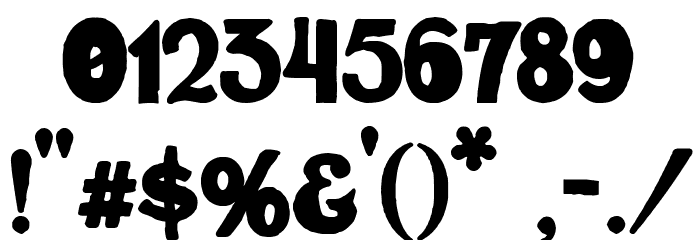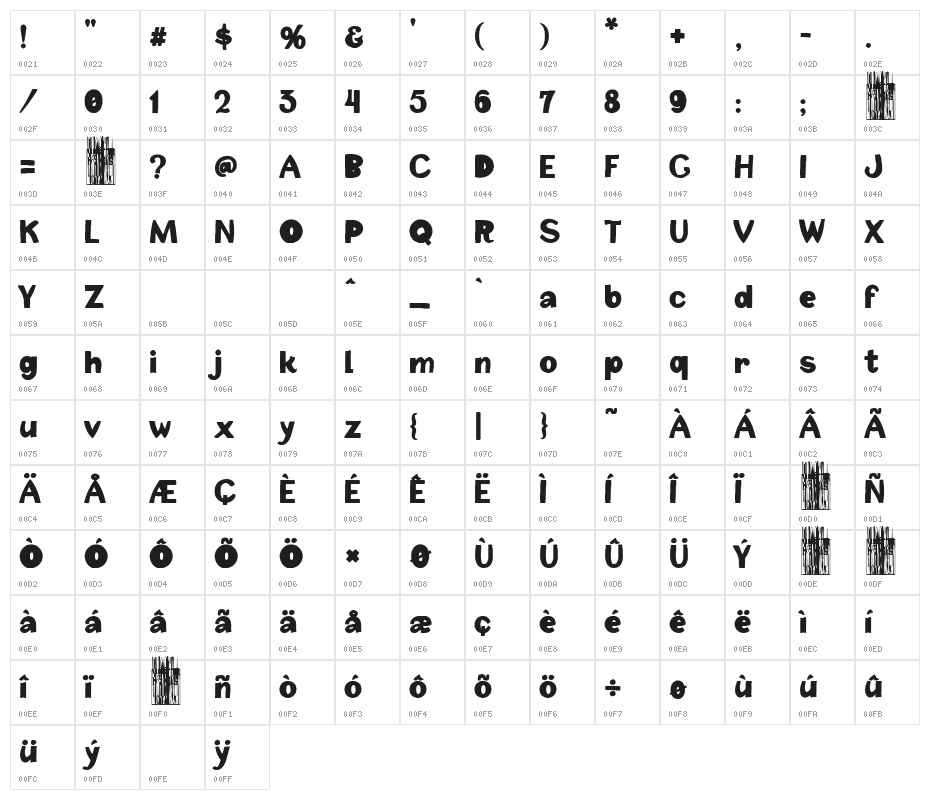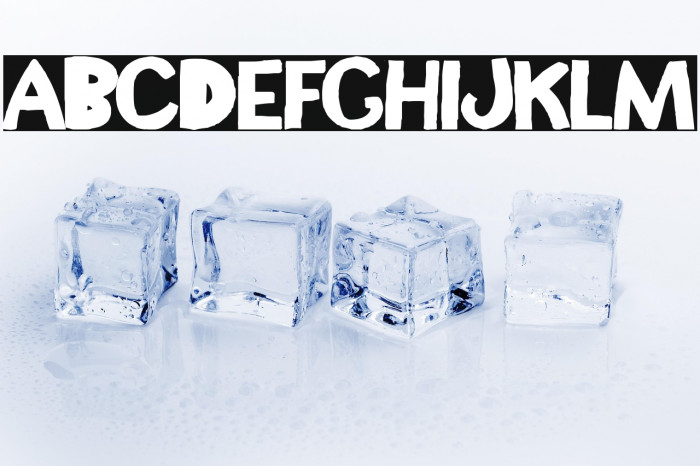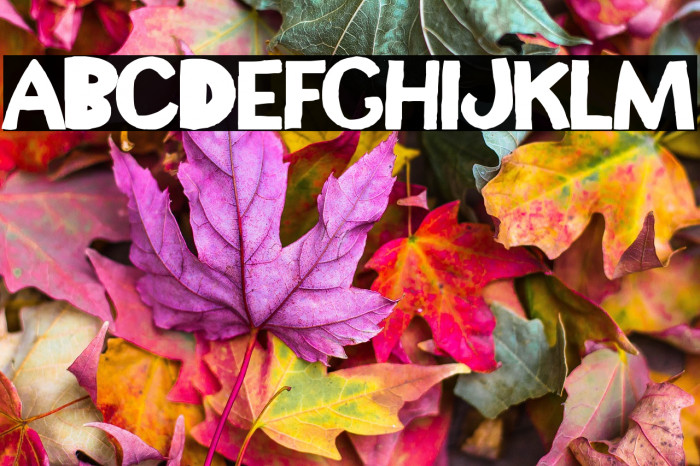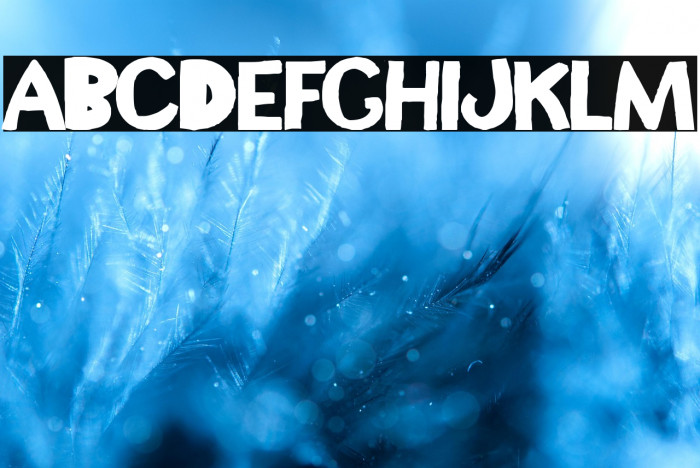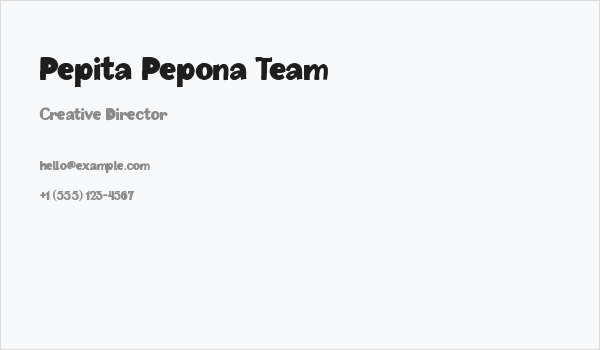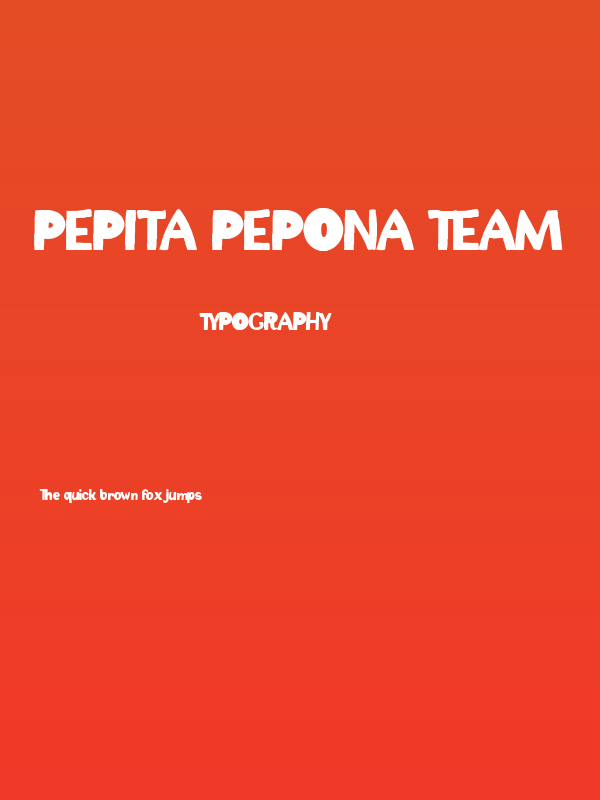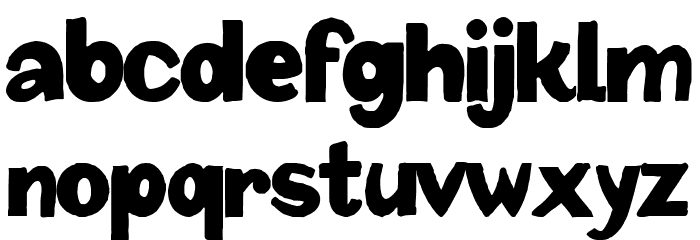
Pepita Pepona Team Font
Pepita Pepona Team Description
This font features a playful and bold style with a hand-drawn appearance. The letters are thick and rounded, giving a friendly and approachable feel. The uppercase and lowercase characters maintain a consistent weight, while the numbers and special characters complement the overall design. The strokes are uneven, adding to the casual and informal aesthetic. This font is ideal for projects that require a fun and lively touch, such as children's books, posters, or playful branding.
| Overall Style | Playful, Informal |
| Proposed Projects | Children's books, playful branding, posters, greeting cards, and casual invitations. |